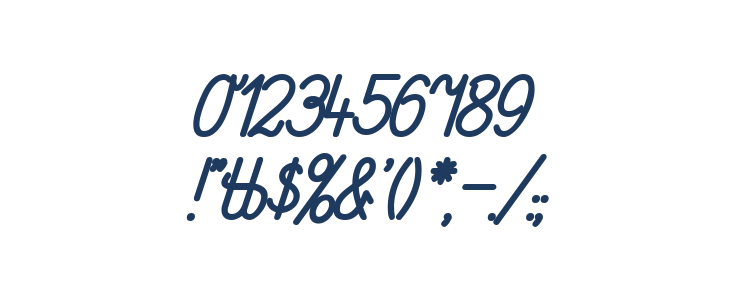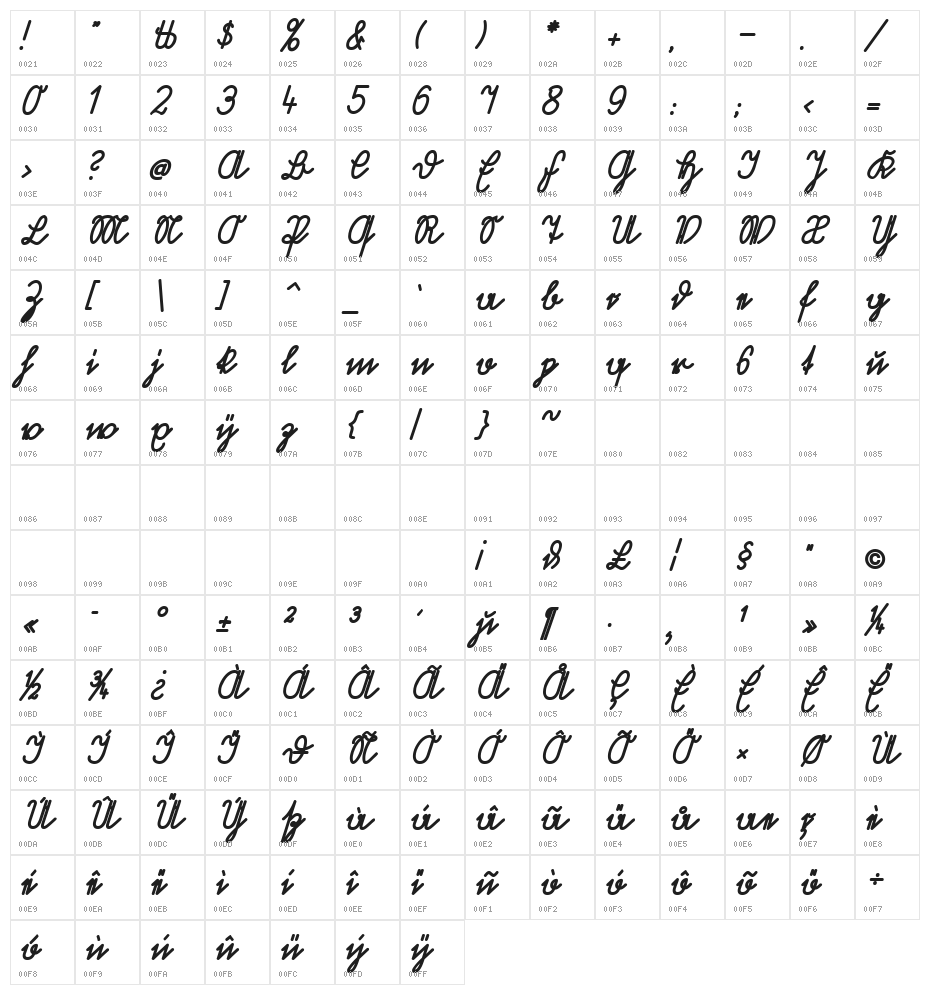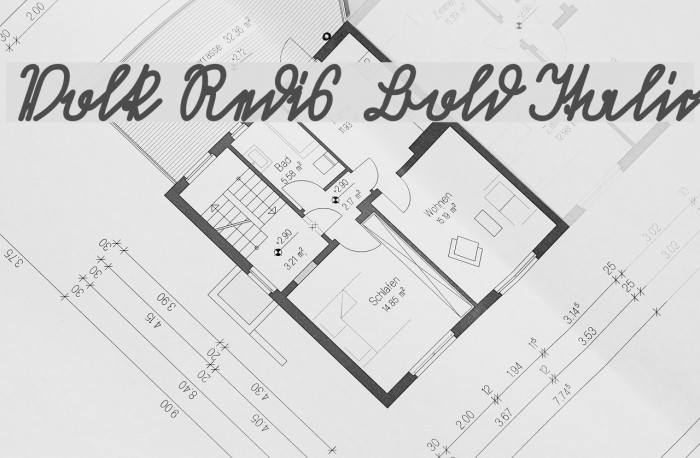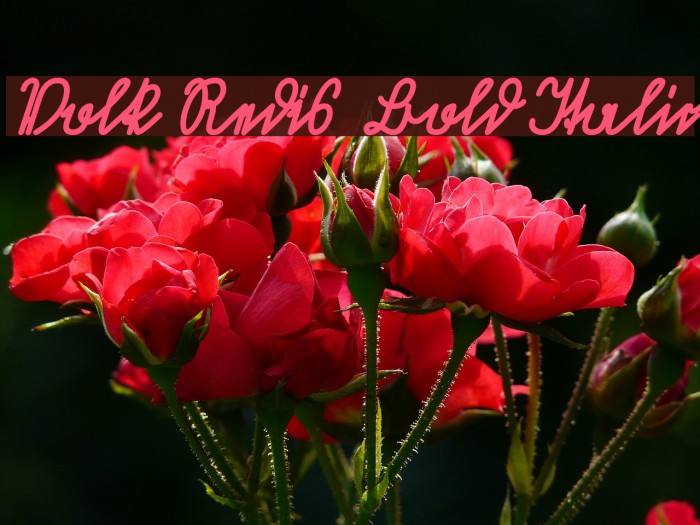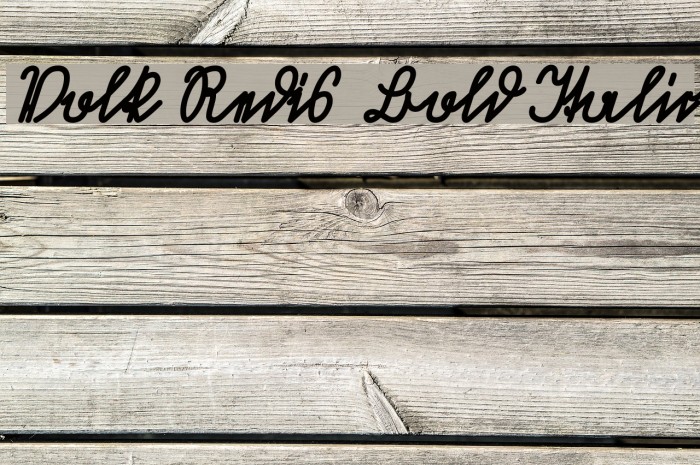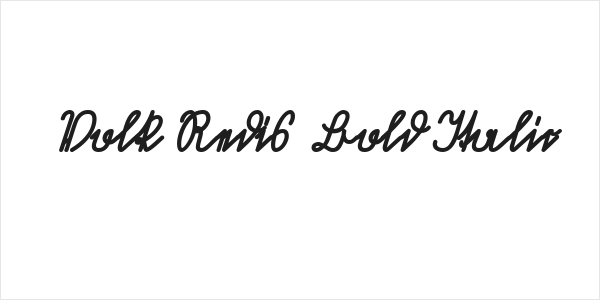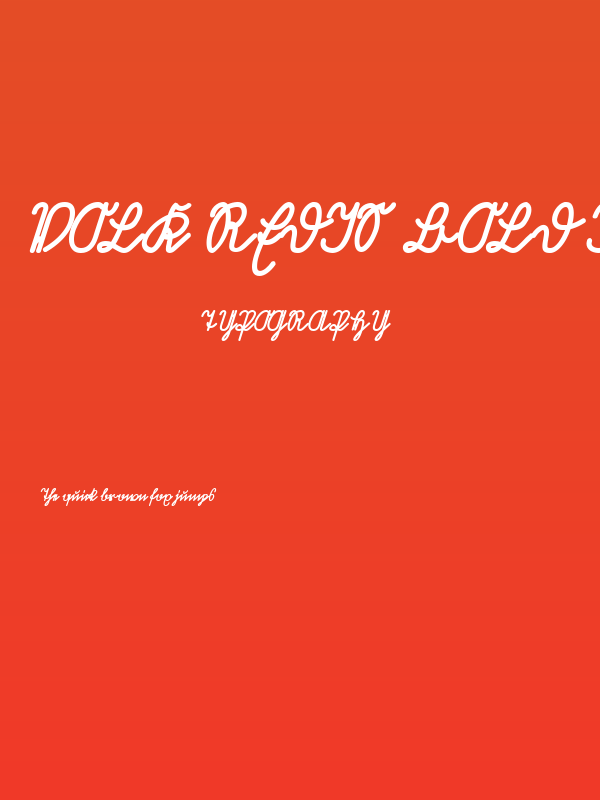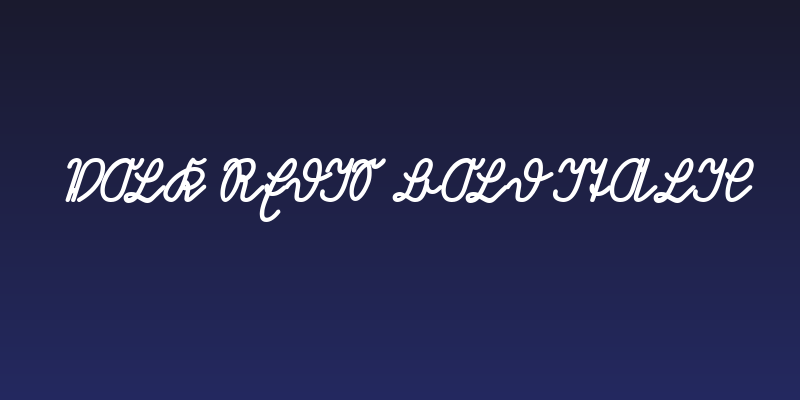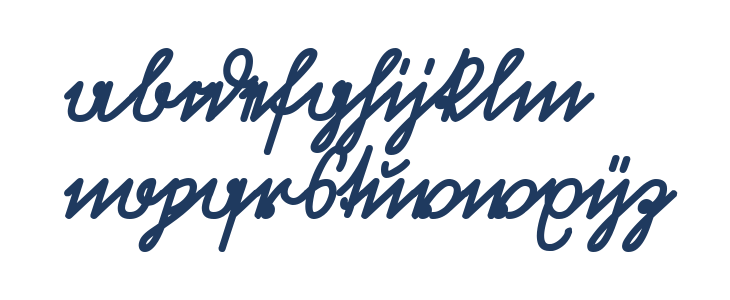
Volk Redis Bold Italic Font
Volk Redis Bold Italic Description
This font features a bold and italicized script style, characterized by its flowing, cursive letterforms. The strokes are thick and consistent, giving it a strong presence on the page. Each character connects smoothly to the next, creating a seamless and elegant appearance. The uppercase letters are distinct and slightly larger, while the lowercase letters maintain a consistent height, enhancing readability. The numerals follow the same bold and cursive style, ensuring uniformity across all characters. Special characters are also included, matching the overall aesthetic of the font.